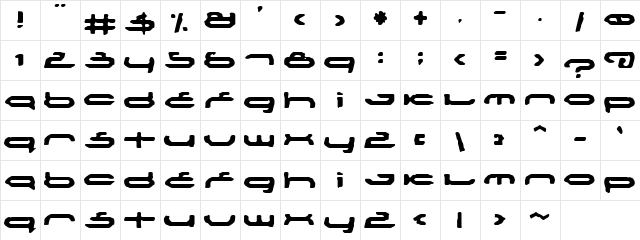
Shaolin Regular
Design Context for Shaolin Typeface
Shaolin is a composed and adaptable typeface that performs quietly and consistently across a wide range of design contexts.